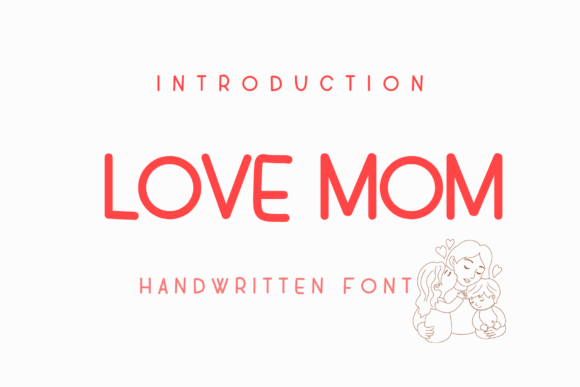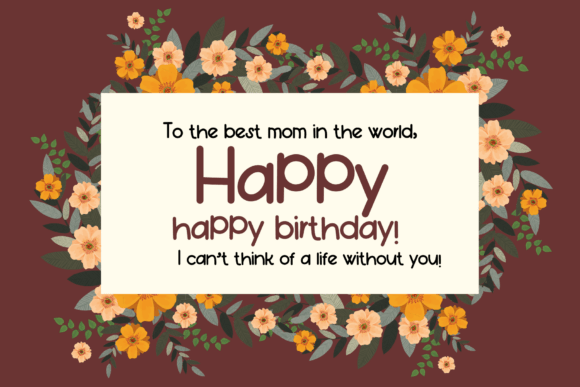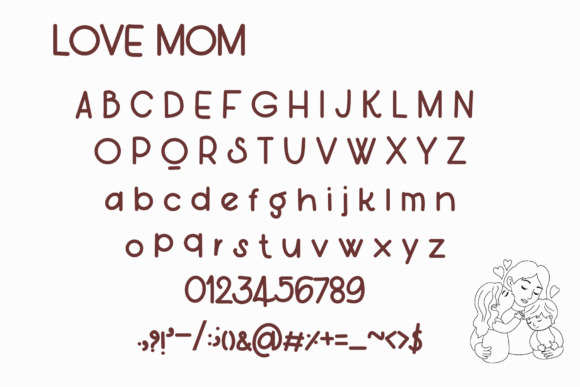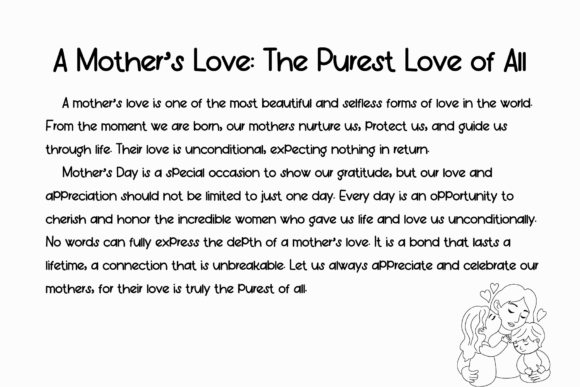
Love Mom Font
About the Love Mom Font
Get ready to be inspired by Love Mom Font, a fresh and dynamic typeface for modern creators. Love Mom is a handwritten font. You can use it for taking notes, writing a diary, or making greeting cards. However, you can still use it for other designs, such as banners, content, mugs, cards, shirts, stationery, social media posts, and more!
Love Mom’s casual, handwritten style works best for projects needing a personal touch, such as greeting cards, invitations, short social media posts, or branding for small businesses emphasizing warmth and approachability. It’s also suitable for packaging designs where a handcrafted feel is desired. However, avoid using it for body text or lengthy content; its informal nature makes it less legible for extended reading. The font is not ideal for UI elements or situations demanding high readability.
Its friendly, approachable personality pairs well with clean sans-serif fonts like Open Sans for body copy, creating a balanced contrast between informality and clarity. For a more playful feel, consider pairing it with a rounded geometric sans-serif such as Montserrat. To add a touch of elegance, a delicate serif like Lora can complement its handwritten charm.
Love Mom’s core personality is undeniably friendly and approachable. It evokes a sense of warmth and handmade charm, making it perfect for projects aiming for a personal and inviting aesthetic.